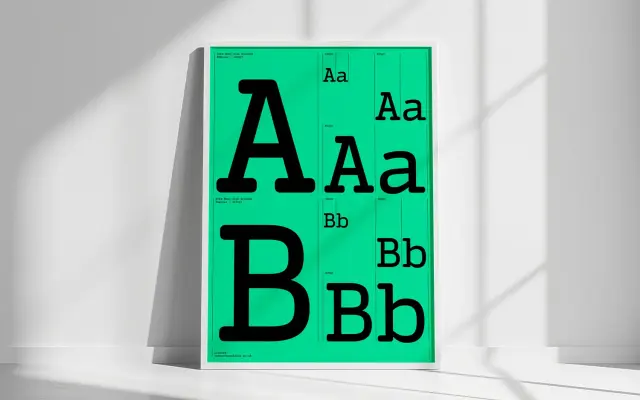
Syke Mono Slab Rounded
A monospaced slab serif with rounded terminals, available in five weights with italics for coding, editorial and branding work.
Fixed-width construction meets slab serif structure with softened, rounded terminals that reduce the severity typical of monospaced designs. The family runs to 755 characters per style and includes practical OpenType features: two alternates for the lowercase a, variants for g, i, l and r, ten numeral styles, fractions, case-sensitive punctuation, slashed zero and localised forms. The combination of strict monospaced rhythm and warmer detailing gives it range across code editors, editorial layouts and identity applications.
A monospaced typeface with slab serif construction and rounded terminals; the combination of fixed-width rhythm, slab serifs and softened curves places it firmly in the slab mono subcategory.